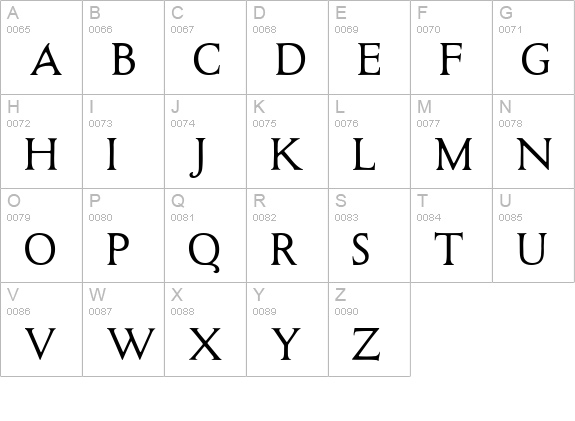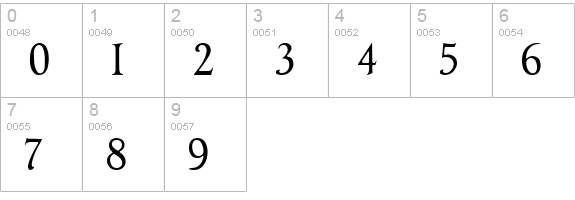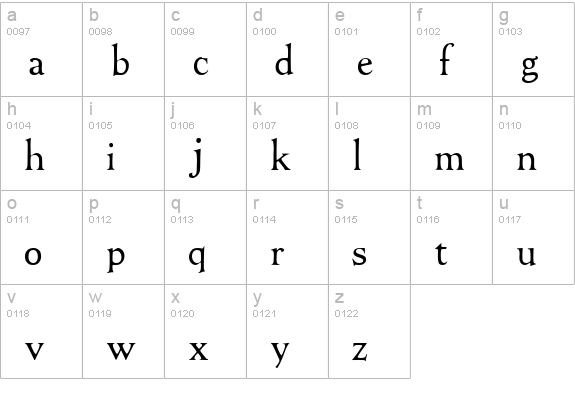
National Oldstyle HPLHS Font Details
National Oldstyle HPLHS font is a classic and elegant typeface that exudes sophistication and timelessness. With its refined serifs and graceful curves, this font is perfect for adding a touch of vintage charm to your designs. Whether you're working on a project that calls for a traditional and distinguished look or simply want to evoke a sense of nostalgia, National Oldstyle HPLHS font is sure to impress. What makes this font even more appealing is that it is available for free download at FontsMarket.com. Yes, you read that right - you can enhance your designs with the beauty of National Oldstyle HPLHS font without having to spend a dime. Simply head over to FontsMarket.com, grab your free copy, and start creating stunning visuals that stand out from the crowd. Embrace the timeless allure of National Oldstyle HPLHS font and elevate your designs with its classic aesthetic. Download it for free today and let your creativity shine.